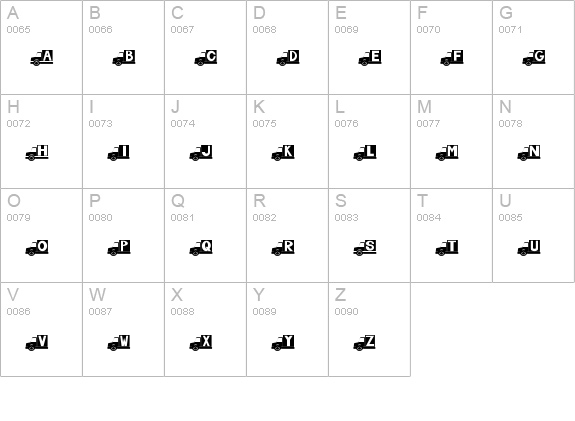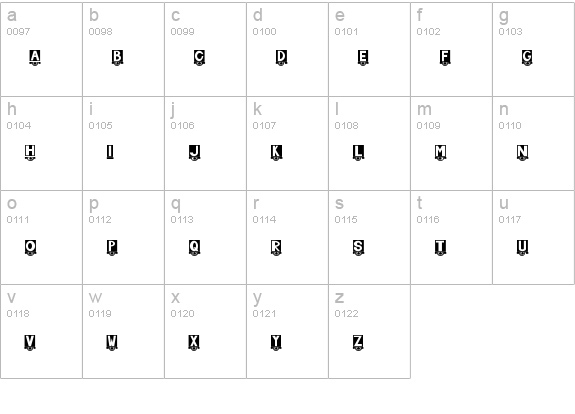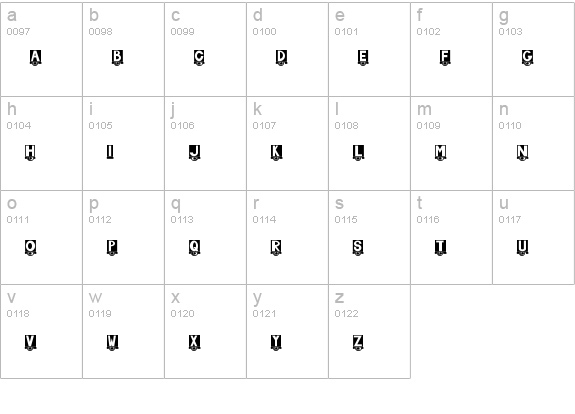
Chlub Font Details
Chlub font is a stylish and modern typeface that exudes sophistication and elegance. With its sleek lines and sharp edges, Chlub font is perfect for creating eye-catching designs that demand attention. Whether used for branding, packaging, or editorial purposes, this versatile font is sure to make a statement. And the best part? Chlub font is completely free to download at FontsMarket.com. That's right, you can elevate your design projects with this stunning font without breaking the bank. So why wait? Download Chlub font today and add a touch of class to your next project!